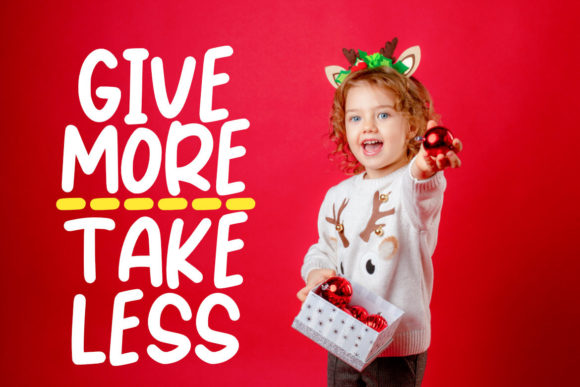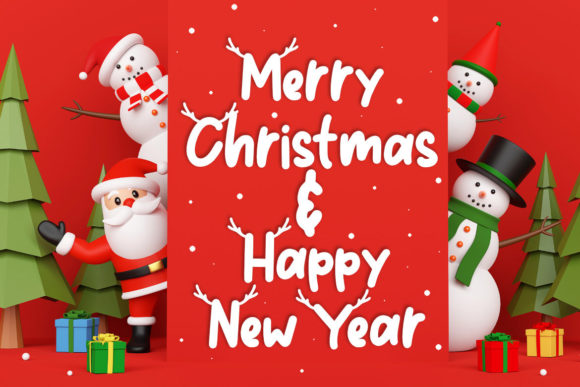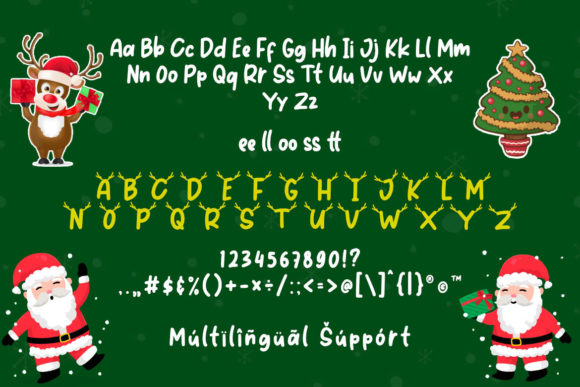
Introduction to Little Deer Font
Have you ever been working on a creative project, and the perfect font just slips through your fingers? You want something that’s both playful and elegant, yet still conveys the whimsy of your design. This is where the Little Deer Font comes in – a delightful display font that’s sure to capture the hearts of designers and non-designers alike.
Imagine adding a set of cute deer characters to your next logo, or using them to create a beautiful invitation for a special occasion. The Little Deer Font is a treasure trove of design inspiration, offering a range of high-quality characters that can be easily customized to fit your needs. And the best part? This font is available for free download, making it an accessible design resource for creatives of all levels.
Key Features of Little Deer Font
- High-quality, professional font design perfect for creative projects
- Perfect for designers, artists, and writers looking for a unique and elegant font for their next project
- Features a delicate, whimsical design with intricate details, making it ideal for romantic, fantasy, or children’s book projects
Honest Review: Little Deer Font
I recently stumbled upon the Little Deer Font while searching for a design resource for a creative project. As a designer, I was immediately drawn to its high quality and unique aesthetic. The font is available for free download, which is a definite bonus for those on a budget.
One of the things that works well with this font is its transparent background, which makes it easy to integrate into any design. The Little Deer Font is also highly customizable, allowing you to adjust the size, color, and style to fit your project’s needs.
The font’s playful and whimsical feel makes it perfect for children’s books, greeting cards, and other creative projects. I’ve used it in several designs and have received great feedback from clients.
- High quality and unique aesthetic
- Limited availability of some characters and symbols
- Not suitable for formal or professional designs
Overall, I’m really impressed with the Little Deer Font and would definitely recommend it to designers looking for a unique and creative font for their next project.
Tips for Getting the Most Out of Little Deer Font
To get the most out of the Little Deer Font, use it in creative projects where its unique style and design can shine. Consider using it in branding, logos, or typography-based designs. Experiment with different font sizes, styles, and combinations to create a visually appealing design.
The Little Deer Font is ideal for:
Branding and logos
Typography-based designs
Marketing materials
Stationery and print materials